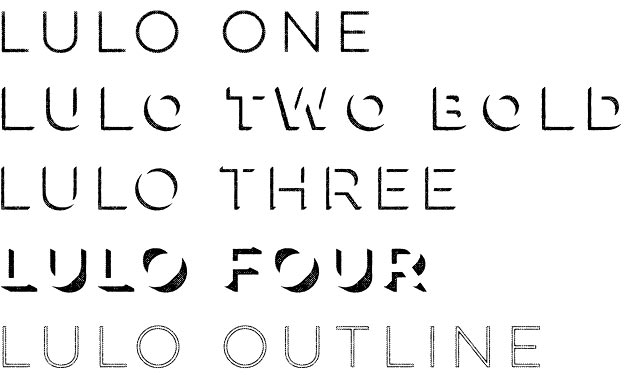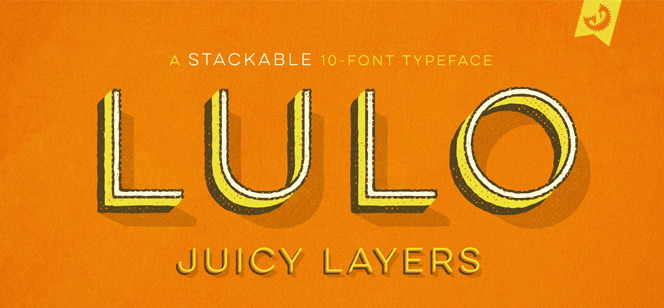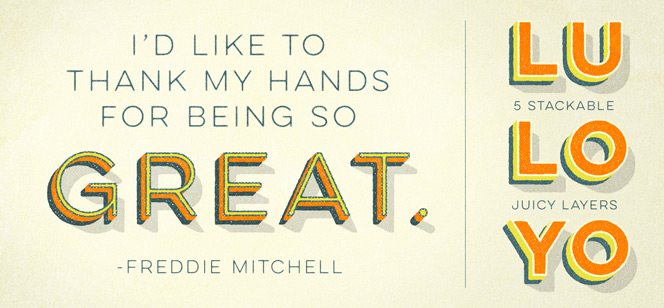
Lulo font
Lulo font is a hot new font family by Yellow Design Studio – probably the most experienced in 3D multilayer typography foundry. As we are used to see in other fonts created by them like Thisrty Rough, Veneer, Gist Rough, Anodyne, etc., there is a very professionally created texture in Lulo family which is attractive and very efficient when you want to have really authentic letterpress effect and vintage look. In fact Lulo is a simple all caps sans serif font with basic skeleton which is developed in 9 different outlines producing different effects – from variable shadow thickness, shadow directions and distance from main type to special outline effects. With the total of 10 fonts inside the family you have no limits in combinations between different outlines. Use different colour for each type layer, use attractive backgrounds, play positive vs. negative and you’ll be able to find unpredictable number of variations that will make your work process very easy and comfortable and your results will be attractive and professional. It is highly recommended to use the family with Open Type compatible software and you’ll get even more of Lulo – ligatures, alternates, special symbols and large set of multilingual characters.
Lulo font is one of those families which really push your creativity to the limit – it is a font which makes you want to use it whenever it is possible. Posters, t-shirts and packaging are one of the places where it fits best, though you could also create beautiful book covers, strong headlines and even logos with it.